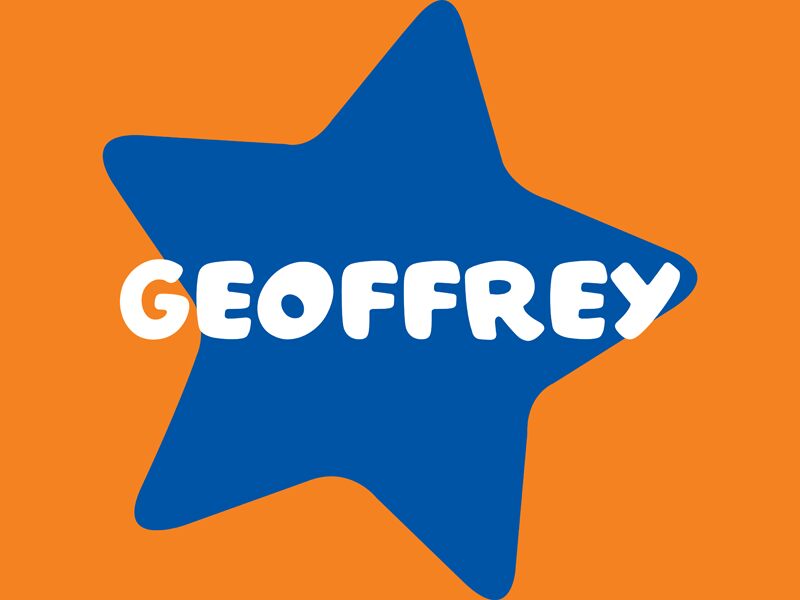
Geoffrey Bold, a captivating display font by LyonsType, is a playful and animated typeface that exudes a cartoon-like charm. Drawing inspiration from the iconic Toys "R" Us logo, this extra-bold font adds a touch of whimsy to any design project.
With its extensive language support and OpenType features, Geoffrey Bold is perfect for creating eye-catching headlines, logos, and packaging designs that demand attention. Let your imagination run wild as you explore the endless possibilities of this delightful font in branding campaigns, children's book illustrations, or even animated videos.